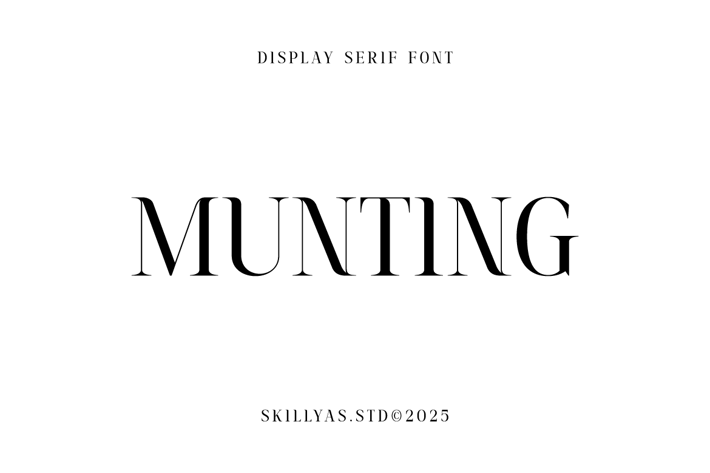
Munting Display Serif Font
Munting is an Elegant Display Serif Font with Refined Curves and Classic Charm.
Ideal for Branding, Editorials, Invitations, and Luxury Designs, it adds a touch of sophistication and timeless beauty.
Character
- Uppercase & Lowercase Letters
- Punctuation & Symbols Support
- PUA encoded Range Standard Alternative Style
- Ligatures (Standard and Discretionary)